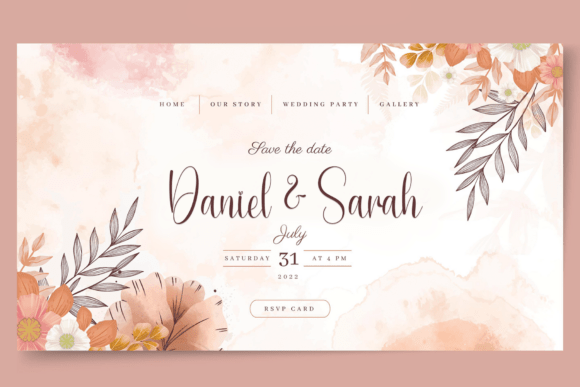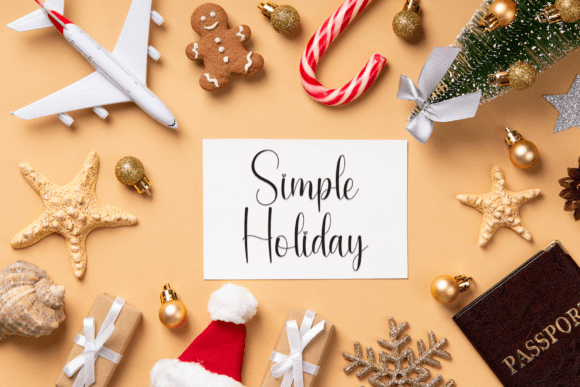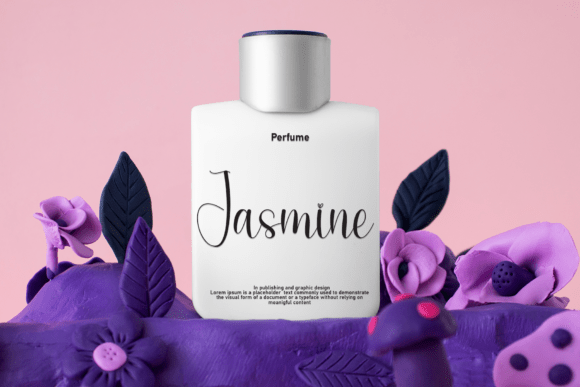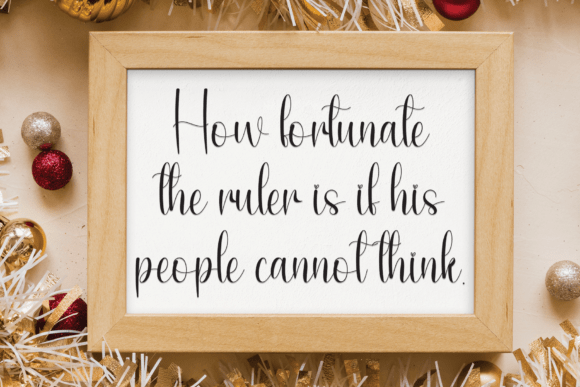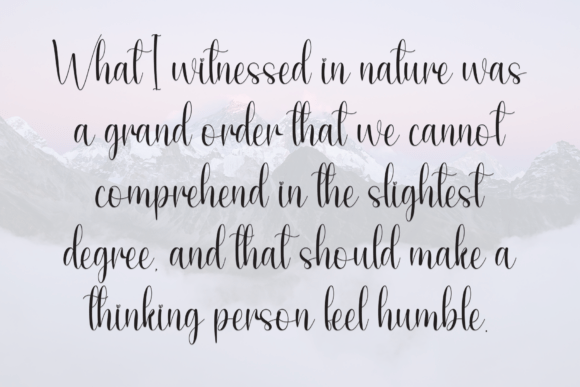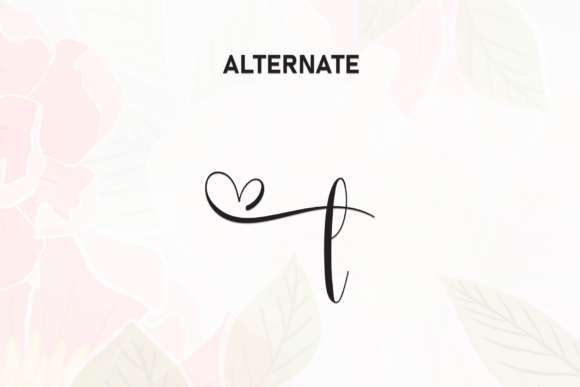
Introducing Angista Font: The Epitome of Elegance and Modern Flair
In the realm of typography, few fonts manage to strike a balance between timeless elegance and contemporary style. Angista Font, a graceful handwritten script font, is one such exceptional find. It seamlessly blends romantic sophistication with a modern edge, making it an indispensable asset for designers and crafters alike. With its flowing lines, delicate curves, and charming heart accents, Angista brings a soft, expressive tone to any design, capturing emotion and beauty in every letter.
The Characteristics of Angista Font
Angista’s design is characterized by its refined, feminine style. The font features:
- Flowing Lines: Angista’s letters are connected by fluid strokes, creating a sense of movement and harmony.
- Delicate Curves: The font’s curves are meticulously crafted to add a touch of elegance and sophistication.
- Charming Heart Accents: Unique heart accents throughout the font add a whimsical and romantic flair.
Ideal Uses for Angista Font
Angista’s versatile design makes it suitable for a wide range of applications, including:
- Wedding Invitations: Add a touch of romance and elegance to your wedding stationery.
- Branding: Infuse your brand with a feminine and sophisticated personality.
- Love Letters: Make your heartfelt letters even more special with Angista’s charming script.
- Social Media Graphics: Elevate your social media presence with beautiful, eye-catching graphics.
Technical Features of Angista Font
Angista Font is designed with the user in mind, offering several technical features that enhance its usability:
- PUA Encoding: Angista supports PUA (Private Use Area) encoding, providing seamless access to its full library of stylistic features.
- Stylistic Features: The font includes a range of alternate characters, ligatures, and swashes, allowing for extensive customization.
Why Choose Angista Font?
For designers and crafters looking for a font that combines elegance with a modern twist, Angista is an excellent choice. Here are a few reasons why:
- Unique Design: Angista’s distinctive style sets it apart from other script fonts, ensuring your designs stand out.
- Emotional Connection: The font’s expressive tone helps create an emotional connection with your audience, making your designs more impactful.
- Versatility: Angista’s versatility makes it suitable for both personal and professional projects, from wedding invitations to branding and social media graphics.
Tips for Using Angista Font Effectively
To get the most out of Angista Font, consider the following tips:
- Pair with Complementary Fonts: Combine Angista with clean, sans-serif fonts to create visual interest and hierarchy.
- Experiment with Colors: Angista looks stunning in pastel shades, metallic tones, and rich jewel tones – experiment to find the perfect color scheme.
- Play with Ligatures: Take advantage of Angista’s ligatures and swashes to add a touch of elegance and sophistication to your designs.
In conclusion, Angista Font is a beautiful, elegant script font that brings a touch of romance and modern flair to any design. Its unique characteristics, versatility, and technical features make it an excellent choice for designers and crafters looking to create stunning visual content. Whether you’re working on a wedding invitation, branding project, or social media graphic, Angista is sure to impress.